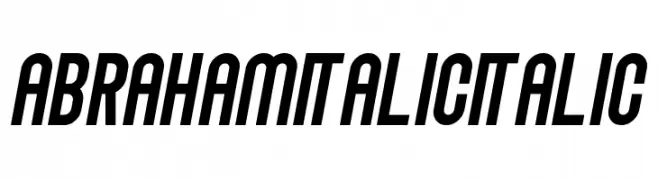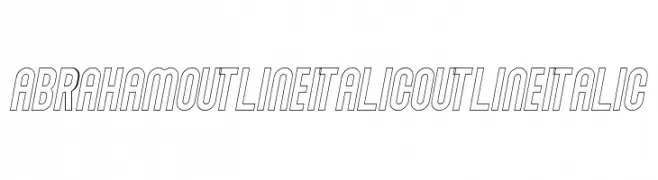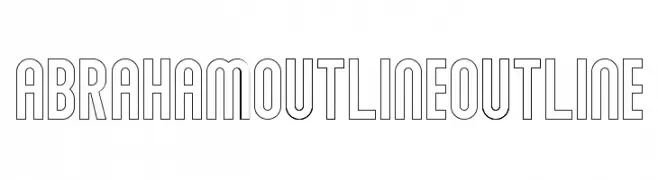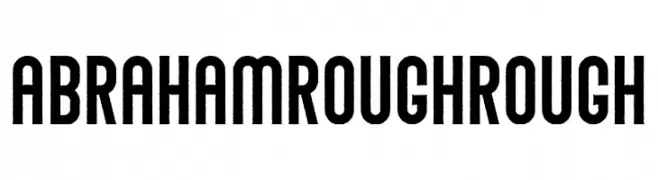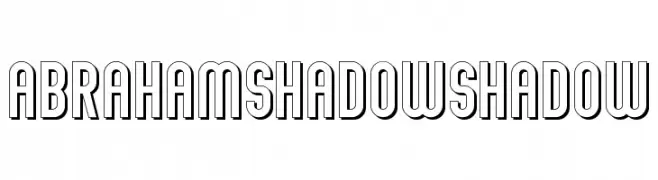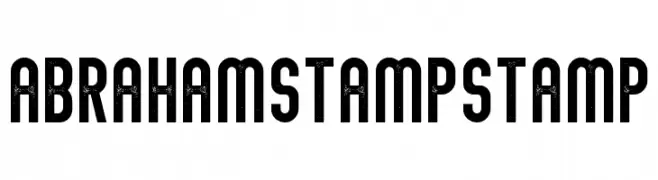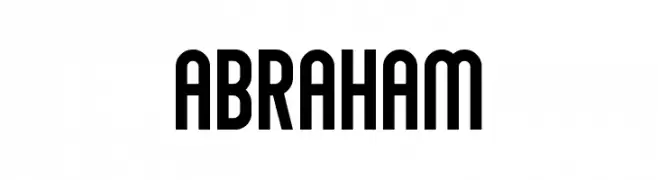
( Måns Grebäck - www.mansgreback.com )
A bold, geometric font with sharp edges and unique cutouts.
( Måns Grebäck - www.mansgreback.com )
A modern, geometric font with bold, clean lines and a futuristic aesthetic.
( Steve Woolf - www.ebay.com/itm/CIVIL-WAR-STEREOVIEW-3D-ANAGLYPH-CONVERSION-DVD/260664775807 )
A classic, elegant handwritten font with fluid, connected characters.
( Typia Nesia - www.myfonts.com/foundry/Typia_Nesia/ )
A classic and elegant script font with flowing, connected letterforms.
( OldStudioo - Muhammad Ilham - www.fontdraft.com )
A graceful script font with decorative swashes and flowing cursive style.
( Muhammad Romzul Khoir )
A classic, elegant script font with flowing, cursive letters.
( Muhammad Romzul Khoir )
A fluid and elegant script font with a natural, cursive style.
( Muhammad Romzul Khoir )
A flowing, cursive font with elegant, connected characters.
( Pollem Studio - Muhammad Nur - www.creativefabrica.com/designer/polem/ref/2050/ )
An elegant, flowing script font with graceful loops and cursive style.
( Rainkarnichi - Aydi Rainkarnichi - github.com/rainkarnichi )
A symbolic, QR code-inspired set for encoding alphanumeric data.
( Rainkarnichi - Aydi Rainkarnichi - github.com/rainkarnichi )
A display font using QR code-inspired symbols for each character.
( Peter Olexa - www.dealjumbo.com )
A bold, angular font with a geometric and modern style.
( Peter Olexa - www.dealjumbo.com )
An elegant inline serif font with swirling serifs and decorative details.
( Pilar Celda )
A geometric and angular font with a modern, architectural style.
( Runsell Studio - creativemarket.com/RunsellStudio )
A lively, expressive handwritten font with fluid strokes and artistic flair.
( Typhoon Type - Suthi Srisopha - www.typhoontype.net )
A dynamic and flowing script font with elegant cursive letterforms.
( Syahputra - creativemarket.com/Bexxtype )
A graceful script font with flowing, interconnected letters and artistic flourishes.
( Purastik Graphics - purastik.net/ames )
A playful, handwritten-style font with rounded, informal letterforms.
( Thirtypath - www.thirtypath.com )
A fluid and elegant script font with smooth, connected strokes.
( Sughayer Foundry - Amin Sughayer )
A modern, minimalist font with geometric and sleek lines.
( Sudar Moko )
A bold, brush-like decorative font with dynamic and energetic characters.
( Muhammad Ridha Agusni )
A bold, gothic-style blackletter font with intricate detailing and sharp, angular lines.
( Muhammad Ridha Agusni )
An ornate, Gothic-inspired italic font with sharp, angular strokes.
A bold, geometric font with strong, authoritative characters.
( OldStudioo - Muhammad Ilham - www.fontdraft.com )
An elegant script font with flowing, cursive letters and intricate swashes.
( Tama Putra - be.net/tmptr )
A bold, brush-style font with a textured, artistic appearance.
( Sabrtype - creativemarket.com/Sabrtype )
A bold, dynamic script font with elegant, flowing letterforms.
( Sabrtype - creativemarket.com/Sabrtype )
A cursive, handwritten font with elegant, flowing strokes and medium contrast.
( Thirtypath - www.thirtypath.com )
An elegant script font with ornate swashes and flowing cursive letterforms.
( Sigit Nur Wicaksono - creativemarket.com/ogit )
A sophisticated script font with flowing, ornate cursive letters.
( Weape Design - creativemarket.com/weape?u=weape )
A bold, flowing script font with elegant cursive letterforms.
( Rahmat Hidayat )
An elegant and flowing script font with graceful curves and loops.
( Måns Grebäck - www.mansgreback.com )
A bold, flowing script font with ornate, tattoo-inspired lettering.
( Omegaville - B.J. Winzer )
A bold, geometric font with sharp angles and a modern aesthetic.
( Walter Paggioro - www.raptuscreativi.com/site/fields/type-design/ )
A playful, hand-drawn font with rounded, whimsical characters.